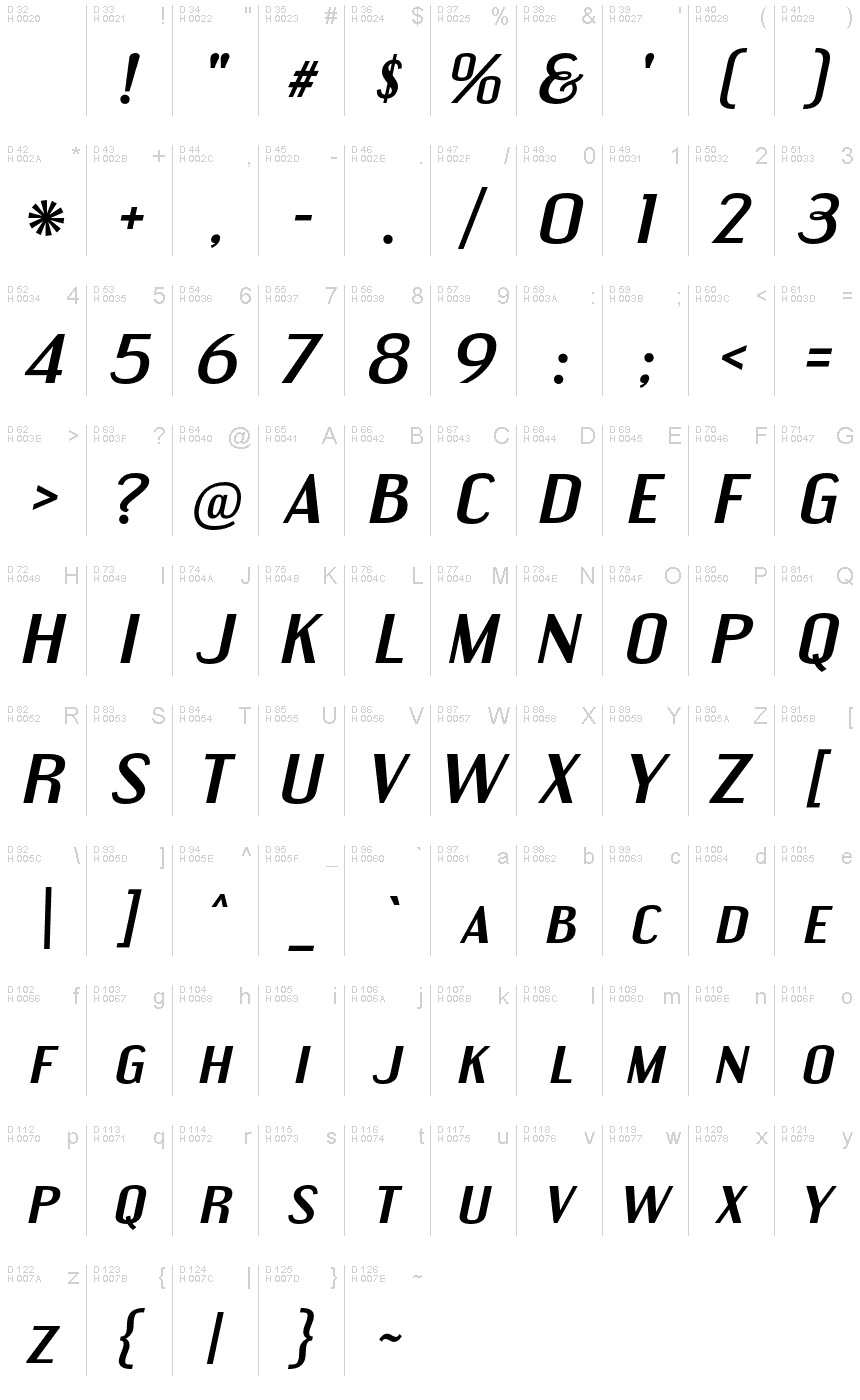
EngebrechtreEx-BoldItalic
Engebrechtre is a gonzo-historical early 20th Century stressed sans created in 2000. The original Engebrechtre Regular was pretty passable, I guess, but the bold and expanded styles were clearly beyond my technical abilities a dozen years ago. This time. I scrapped all but the regular weight and started all over. Theres new spacing, new kerning and web-friendly horizontal precision. The original S was a bit clunky so Ive drawn the new one with a bit more grace. Accents have been redesigned and more languages are supported. The italics have round dots, not slanted dots . . . a detail Id missed in the previous version. There are more math symbols, fractions and numeric ordinals too. Theres a new @ symbol as well as the new Indian rupee symbol. Vertical metrics have been optimized for better web performance.